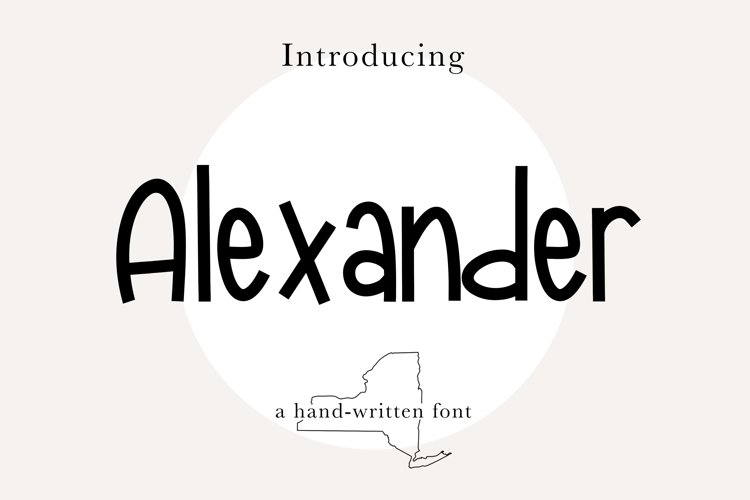
ALEXANDER FONT- Fun, Cute, Quirky, Handwritten Font
Alexander
A cute, mixed capital, handwritten, sans serif font!
ALEXANDER FONT- a handwritten, sans serif TTF font that includes a full set of upper and lower case letters, multilingual symbols, numbers, punctuation, and more